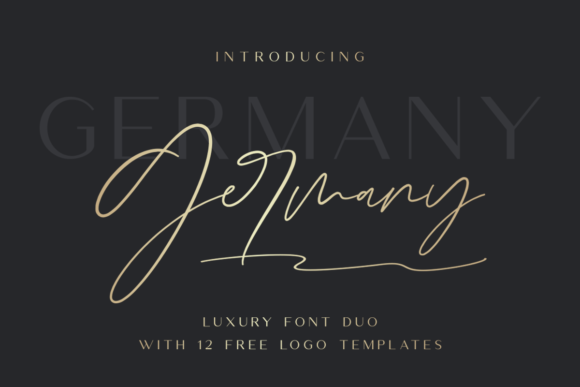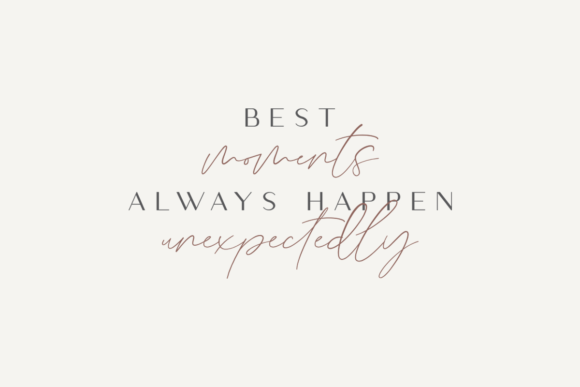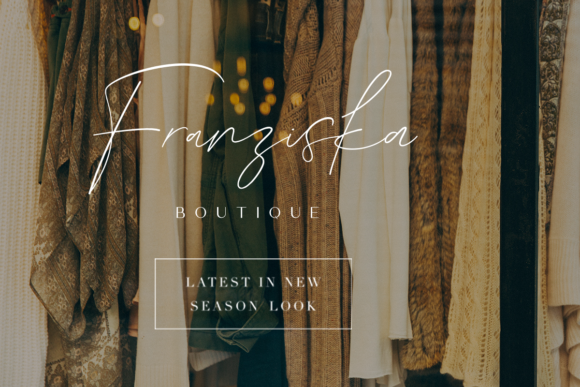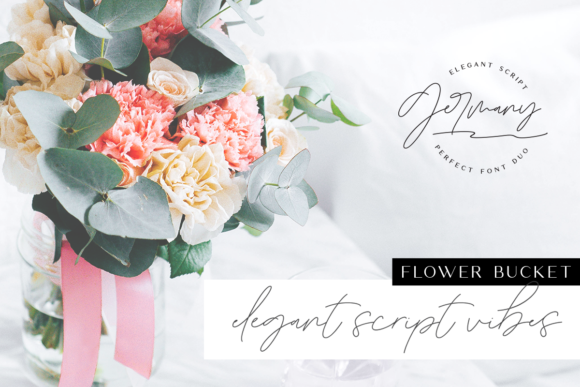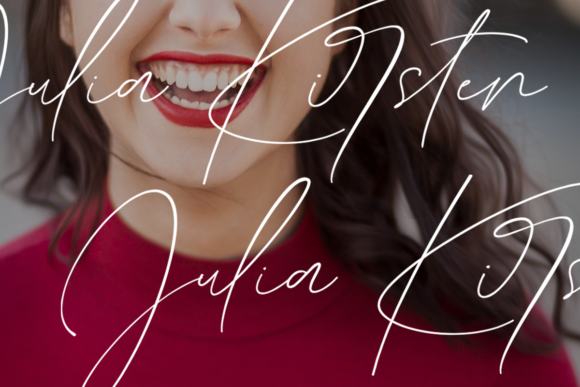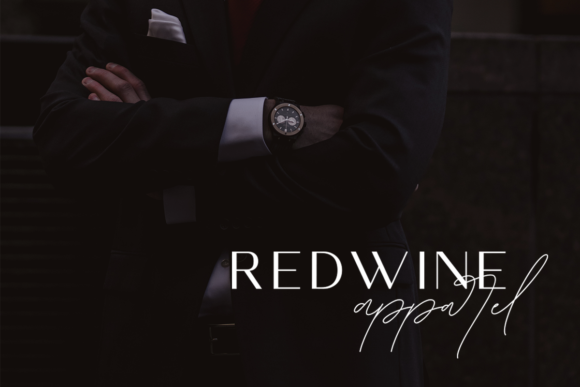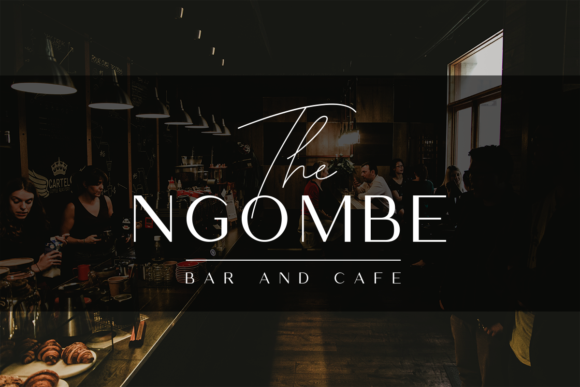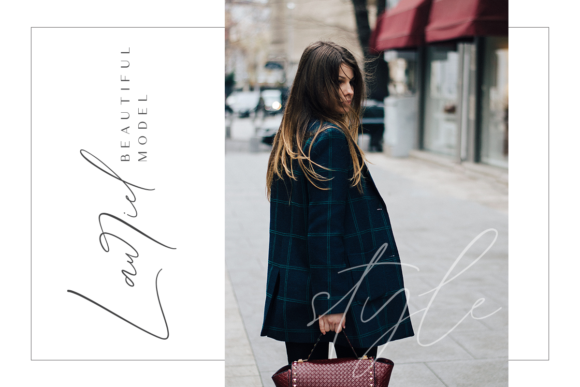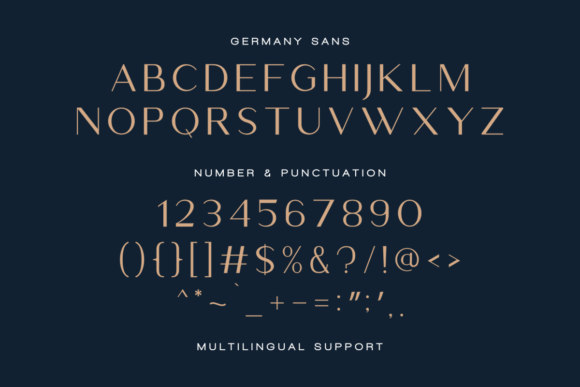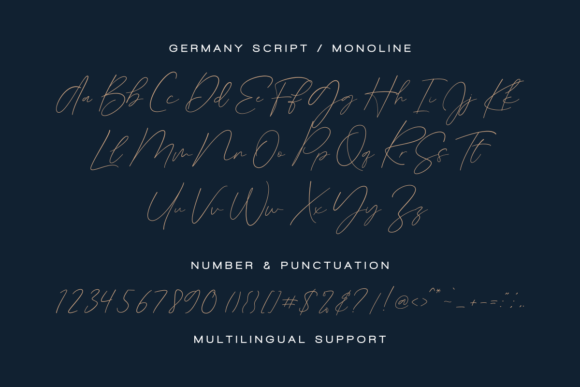
Germany Duo Font
The Germany is a luxurious font duo. It includes a classy, contemporary pair of script and serif fonts. Included is a clean, free-flowing script font, a classy, high contrast sans font containing uppercase characters only, a ligatures version, and an amazing monoline version.
The Germany offers beautiful typographic harmony for a diversity of design projects, including logos & branding, wedding designs, social media posts, advertisements & product designs.
Germany also includes a set of 12 editable logo templates, each one uniquely combining the two Germany fonts to create striking, modern logo designs for you to edit and use as your own.